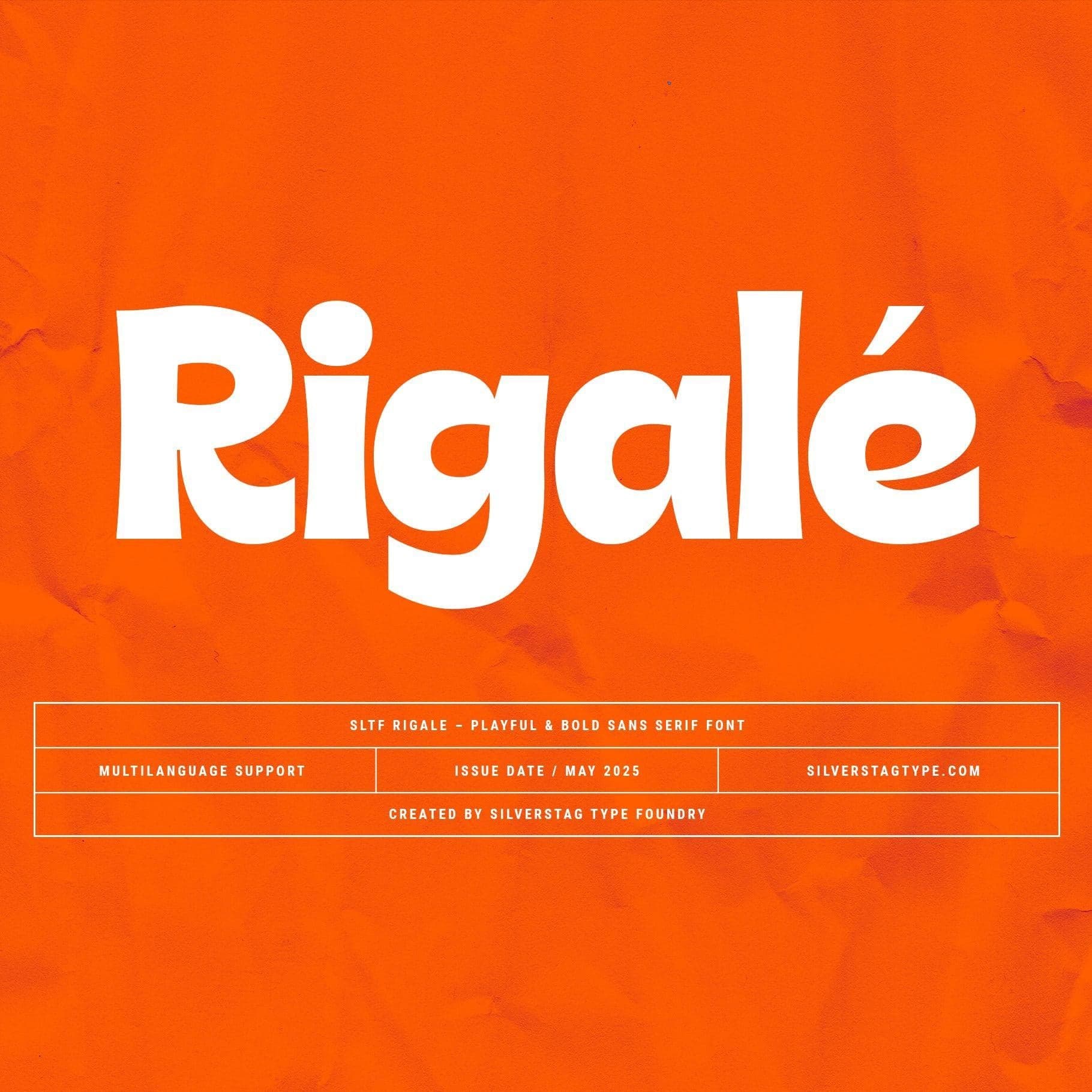
<p>Meet SLTF Rigalé, a modern sans serif typeface that brings playful character and bold energy to your creative toolbox. Designed with a unique sense of rhythm, stylish ink traps, and curvy charm, Rigalé stands out in a world of rigid geometry and sterile minimalism.</p> <p>This bold and rounded typeface blends clean structure with an upbeat, slightly retro attitude - perfect for designers looking to make a statement. Whether you’re crafting standout packaging, lifestyle branding, creative headlines, or eye-catching apparel graphics, Rigalé brings a punch of personality to your work.</p> <p>The letterforms feature exaggerated vertical stress and unexpected curves that bring movement and flair, while over 100 ligatures and alternates keep your typography fresh and full of life. Rigalé includes both uppercase and lowercase sets, full punctuation, multilingual support for over 90 languages, and webfont files to keep your brand consistent across platforms.</p> <p>From vibrant product labels to punchy poster designs, Rigalé is ready to play.</p> <p>Would you like to get 5 completely free fonts worth over $75? No tricks, no hidden words, terms or anything. Just subscribe to my newsletter, make sure to check your email to approve the subscription, add me to your contacts so that the emails don't end up in spam folder and you will get 5 fonts for free. The fonts are packed with alternates, ligatures and some even come with extra goodies.</p> <p><a href="https://view.flodesk.com/pages/63594052b967a943dd6cc528">https://view.flodesk.com/pages/63594052b967a943dd6cc528</a></p> <p>Happy creating everyone!</p>